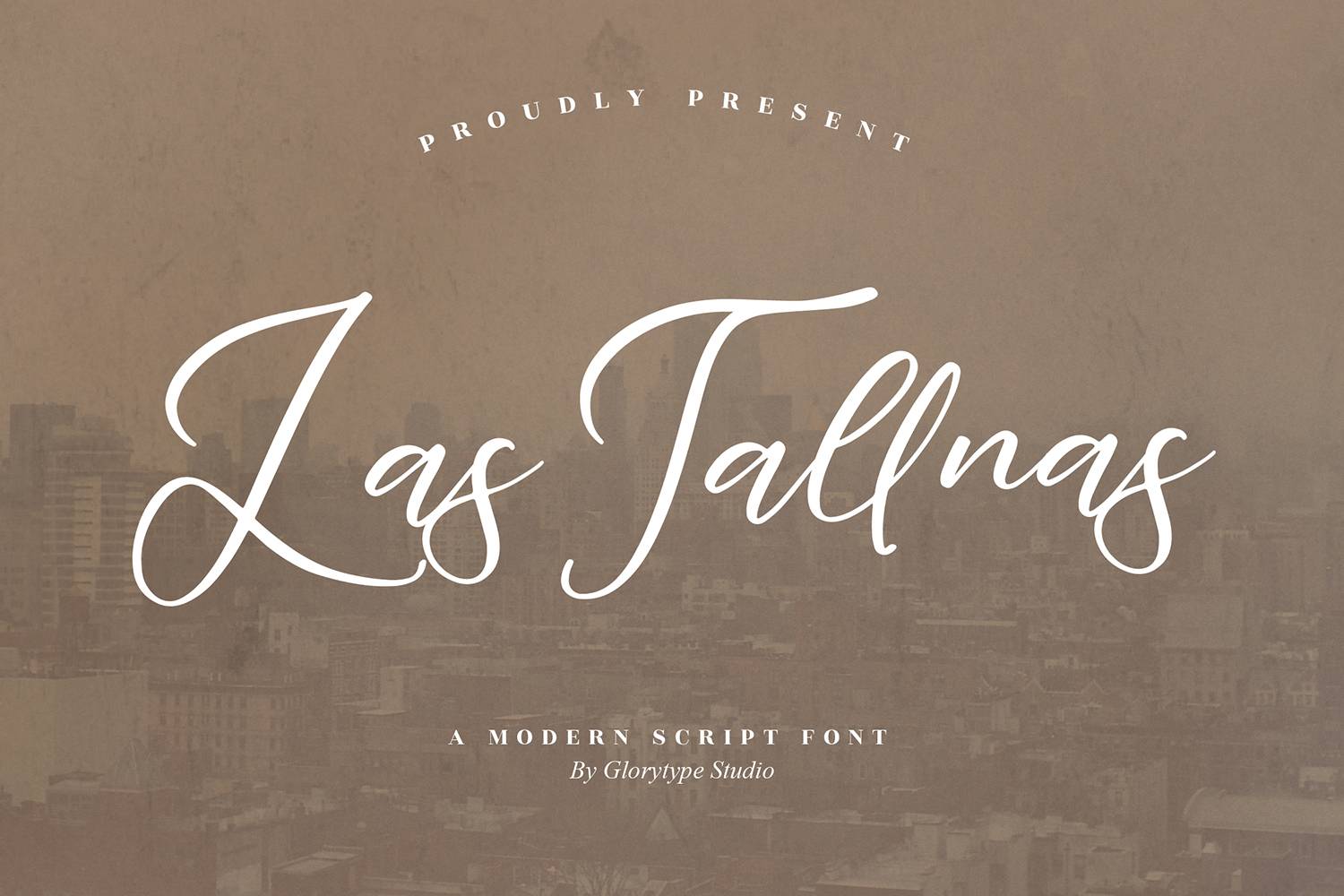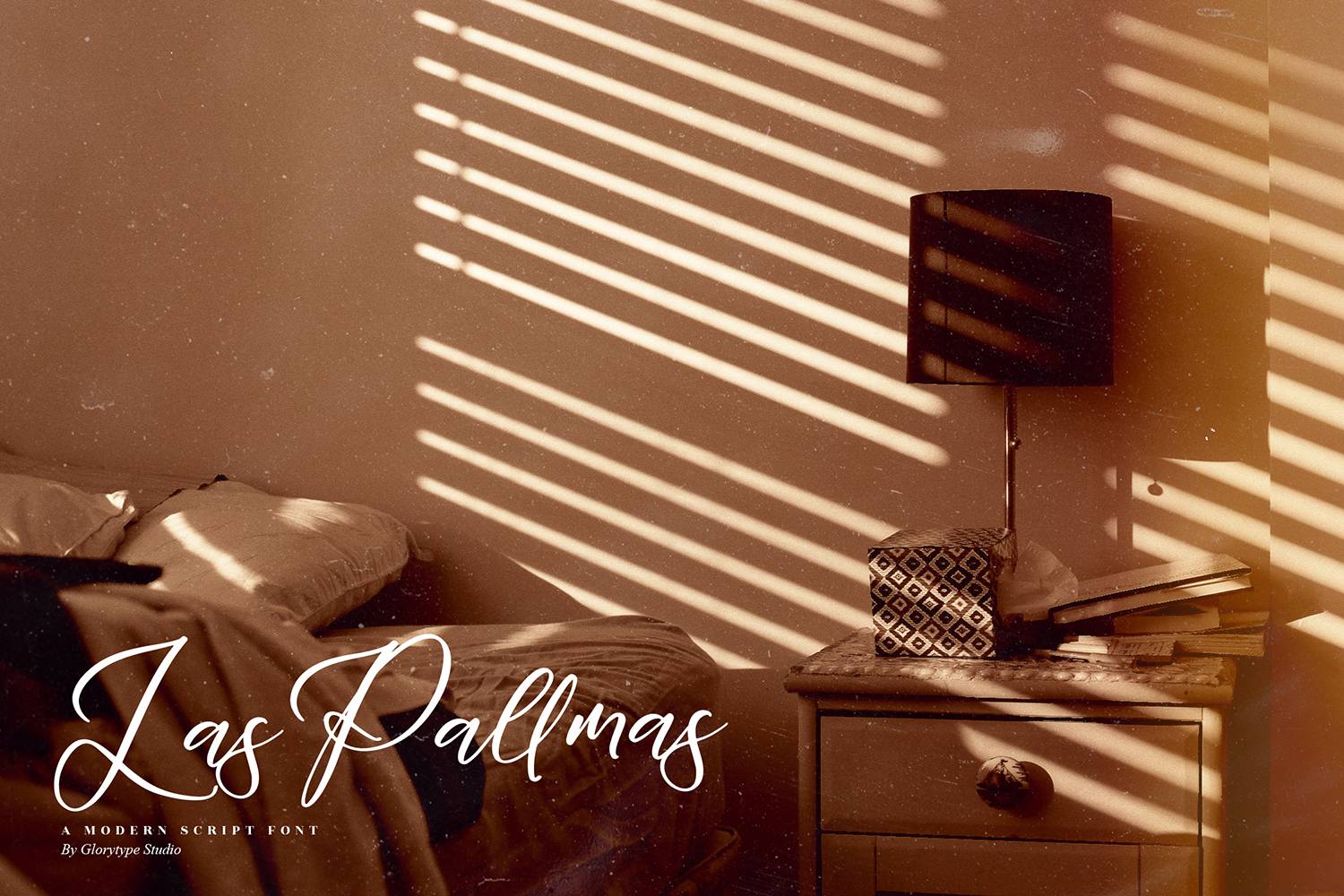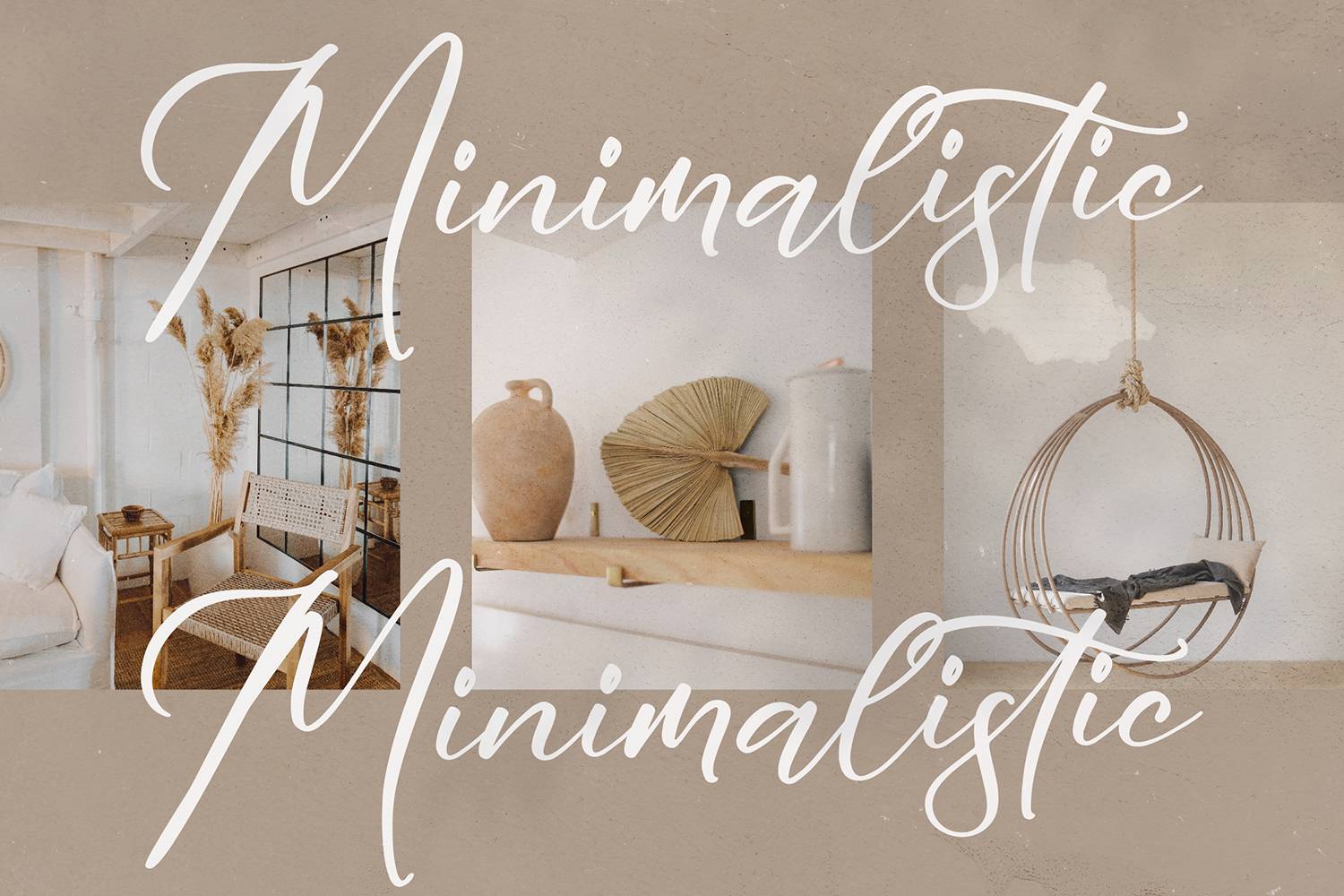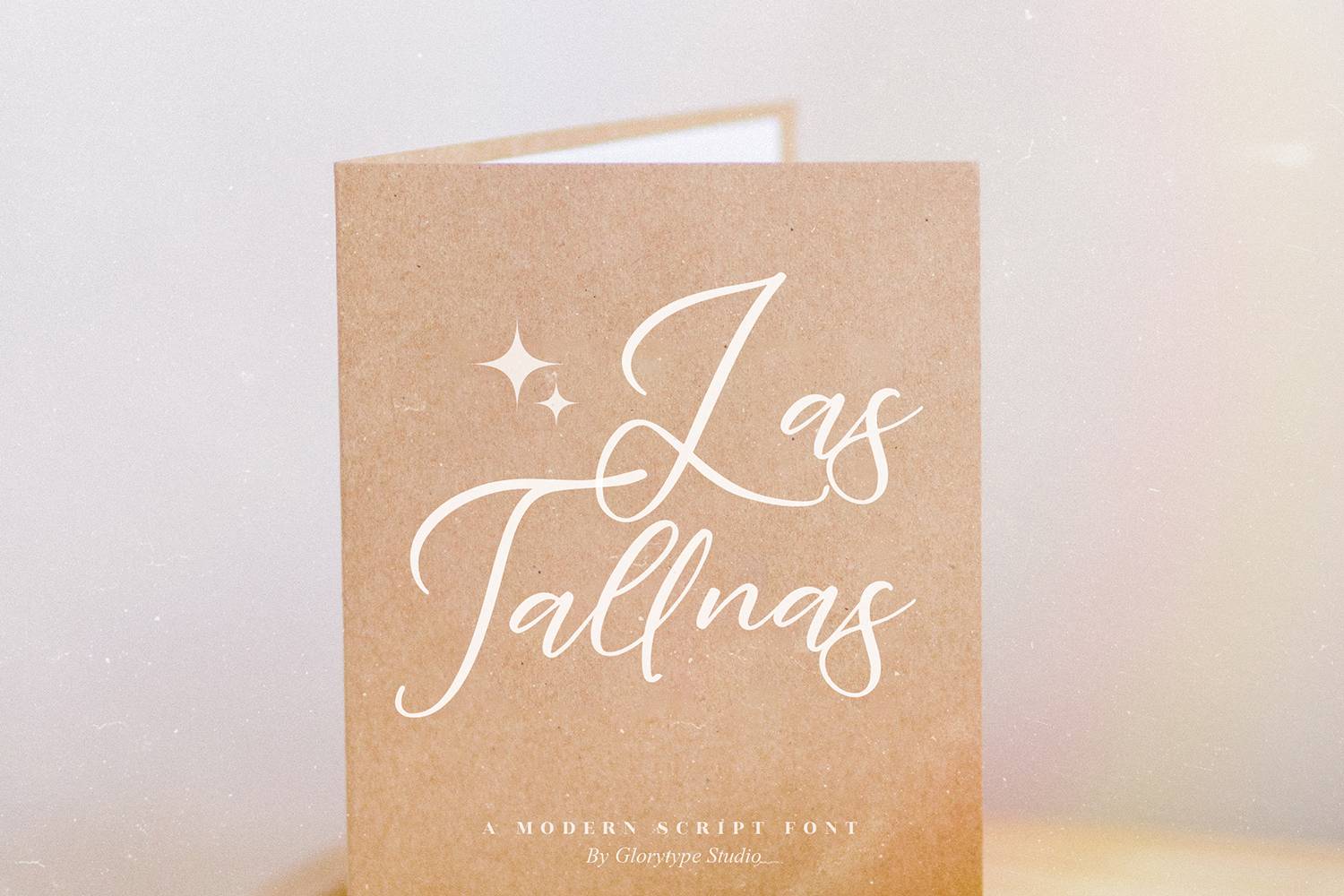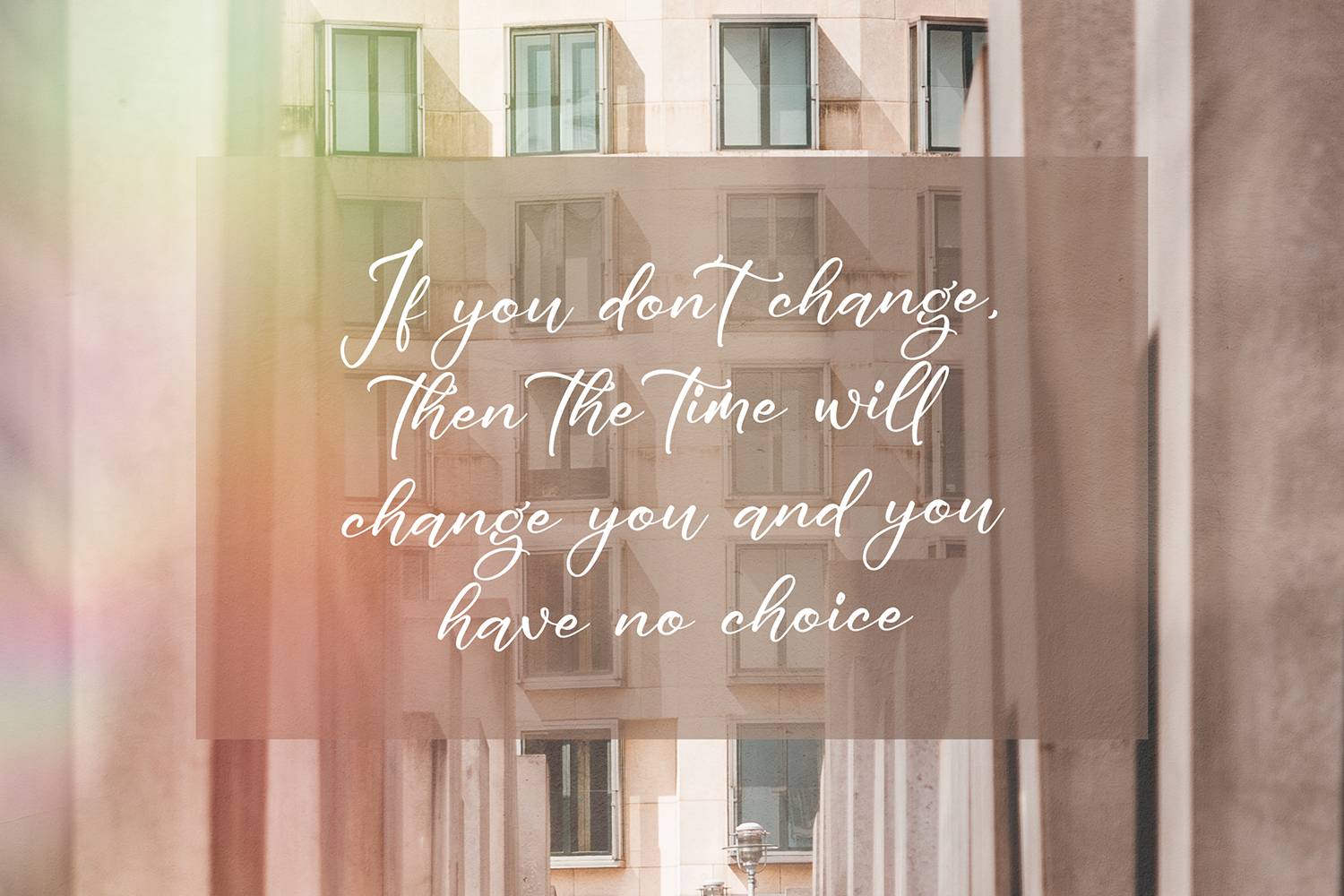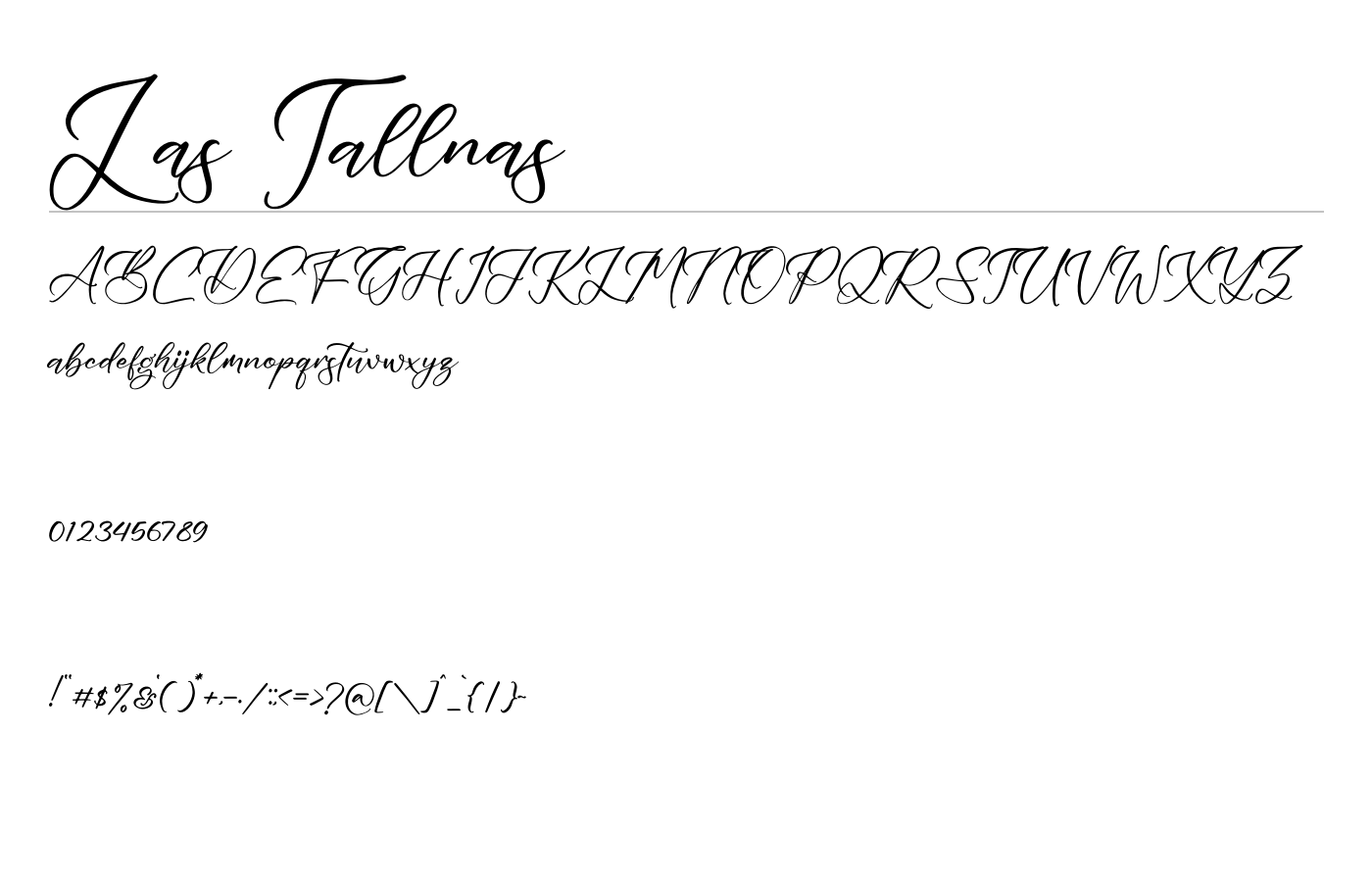
Las Tallnas is an elegant script font characterized by its tall, slender letterforms and smooth, flowing strokes. Its delicate, refined style makes it ideal for sophisticated branding, wedding invitations, and luxury packaging where a graceful, hand-lettered feel is desired. This font’s slender, calligraphic nature adds a touch of romance and class to any design needing an airy, stylish presence.
Las Tallnas Font
About Las Tallnas Font